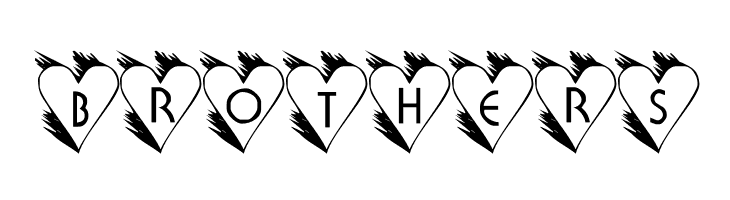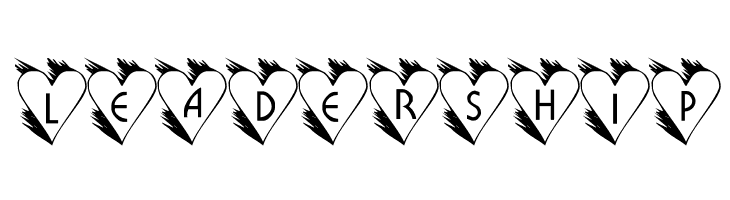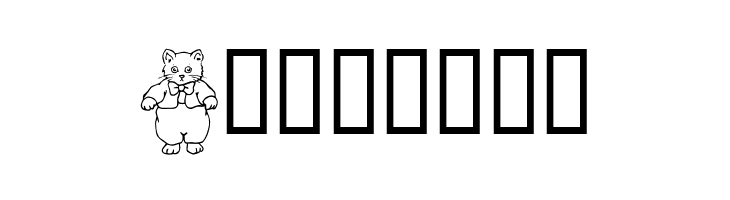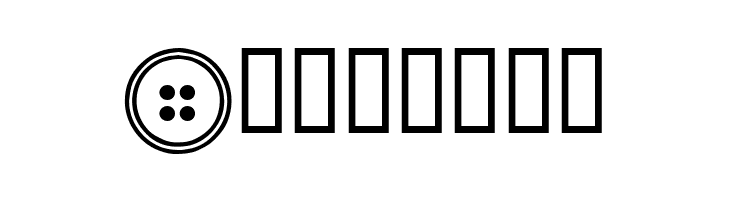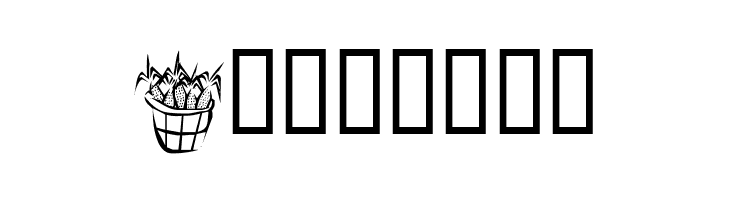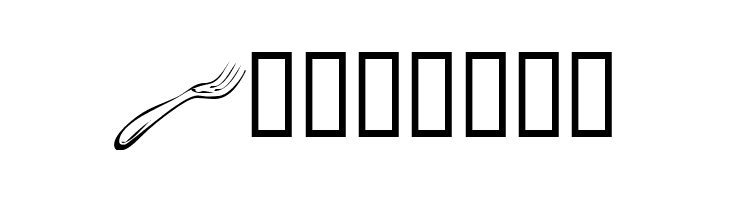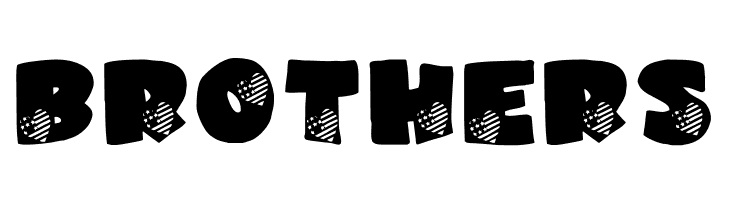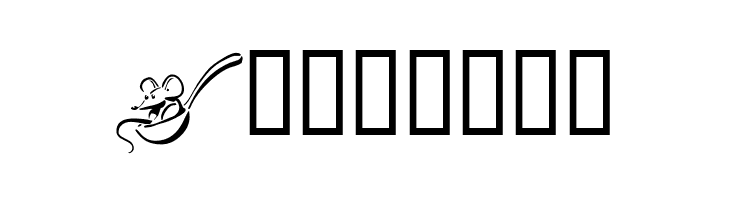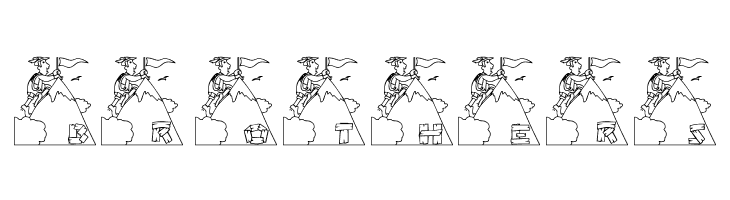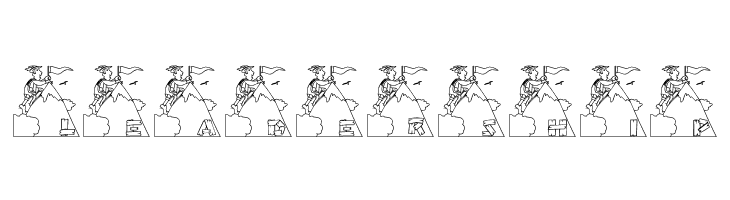
A whimsical font with characters enclosed in heart shapes with wings.
A whimsical font with each character adorned by playful angels.
A decorative font with bold letters and corn motifs, perfect for autumn-themed designs.
A decorative font with characters encased in sunflower-themed borders.
A playful font with bold letters and cartoon mouse illustrations.
A decorative border and dingbat set with assorted intricate motifs.
A whimsical font with bold letters and playful bunny illustrations.
A whimsical decorative font featuring sleeping cat illustrations with each character.
A playful font with chef-themed decorations on each character.
A whimsical, modular font for assembling cartoon faces.
A whimsical, frog-themed decorative font perfect for playful designs.
A decorative font with characters inside heart shapes topped by cupids.
A whimsical, spooky font with characters resembling haunted trees.
A decorative font with characters inside heart shapes with floral accents.
A playful, decorative font featuring angelic frogs alongside bold characters.
A playful, party-themed decorative font with bold, festive characters.
A bold, decorative font with snowflake motifs for a festive look.
A whimsical font with characters embedded in cartoon duck illustrations.
A playful, cat-themed handwritten font with whimsical charm.
A decorative font featuring characters integrated into cartoon car illustrations.
A bold, playful font with chef hats atop each character, perfect for culinary themes.
A stylish font featuring characters embedded in high-heeled shoe silhouettes.
An ornate decorative font with characters enclosed in rose baskets.